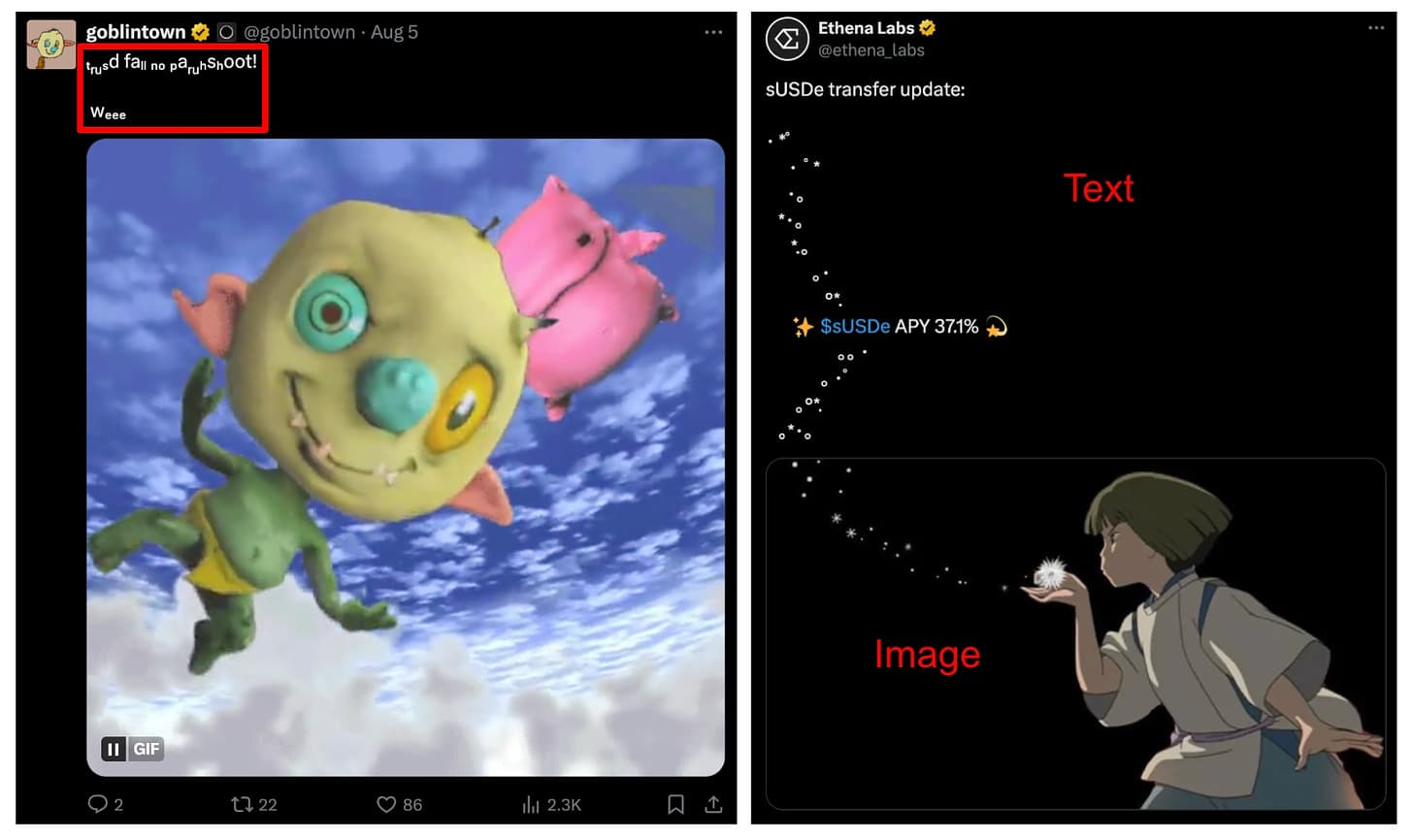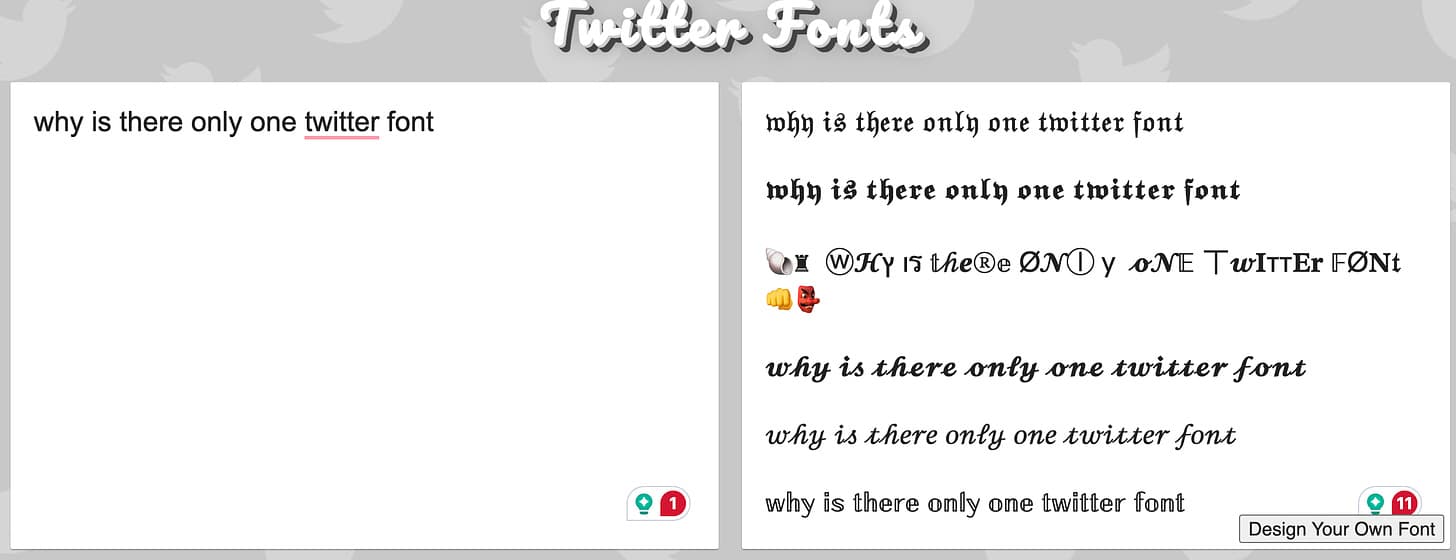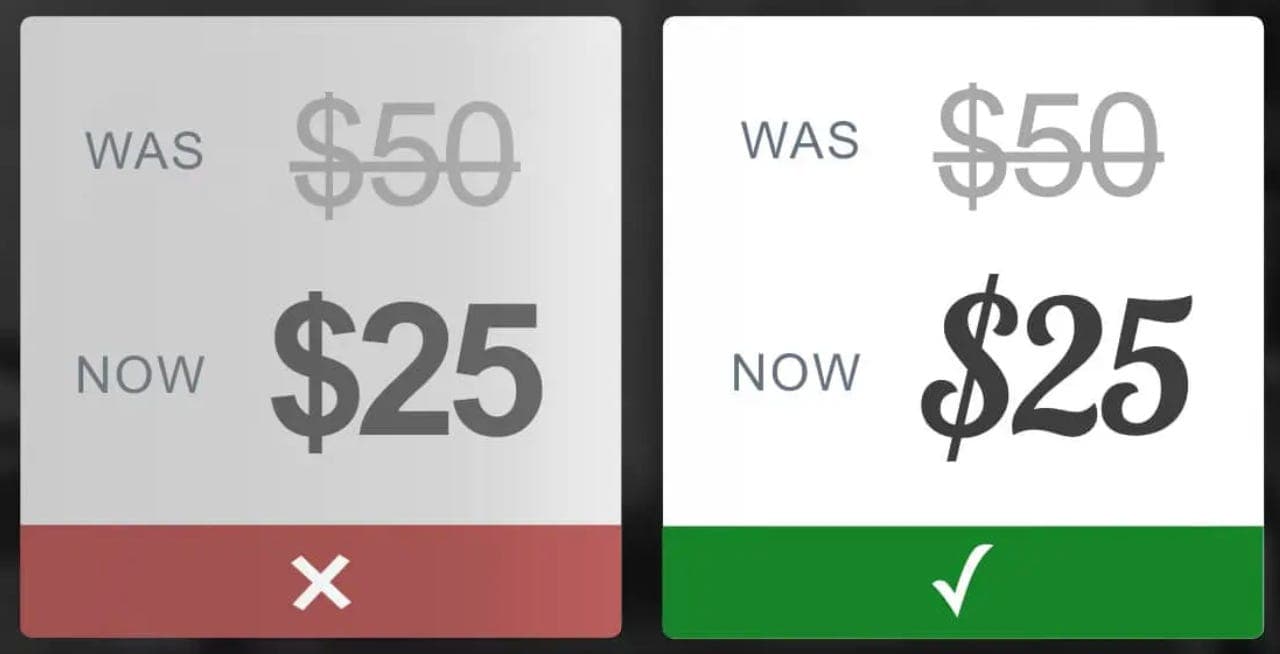
Nick Kolenda is a consumer psychology researcher with a great newsletter that highlights tactics that are particularly applicable in the ecomm space. I’ve subscribed for several years now and there are a lot of insights that are applicable in this space, or at minimum worth putting in the back pocket.
Today’s topic was around displaying good deals in ugly fonts:
Typically, fluency (ensuring a message is easy to read) is important when it comes to communicating a message. However, disfluency can be persuasive when leveraged creatively. The key insight from a marketing psychology study was this:
the increased effort required to process disfluent price information can lead to deeper information processing. If the advertised price offer represents a good value, it can enhance purchase decisions, even if customers prefer the disfluent display less
What this means is disfluency can act as positive friction when it comes to grabbing attention. In the constant war on attention on certain platforms that are restrictive when it comes to font, disfluency can be an advantage.
You can’t choose the font for your X posts, but there are other ways to work around that. For example, there are font tools utilizing unicode (a digital text standard) to make text more expressive.
We’ve seen this approach adopted by various projects in both an evergreen and one-off format:
Goblintown’s (in)famous superscript and subscript formatting to amplify the community’s persona and vibe. And they’ve been at it for 2 years and counting
Ethena combining text, image, emojis, and formatting to communicate a creative update
Goblintown and Ethena couldn’t be any more different, but they used disfluency to their advantage.
The only way to figure out how this can be best applied for a specific product or community is testing it out. If it doesn’t work out, it’ll be quickly forgotten and buried into the depths of the algorithm. If it does work (measured by engagement, replies, etc.), it can be doubled down on and be implemented in a specific capacity (eg: a certain type of recurring announcement or topic) or be an extension of a brand persona in an evergreen format.
The insights section from Bitkraft is also filled with nuggets. Check it out, whether you’re in the gaming industry or not.
Have you played a game before? If so, play this game of Share or Subscribe!
Seyi Taylor publicly shared slides from a Columbia Business School talk, making the case that distribution is the bottleneck for outsized returns.
In the presentation, Seyi provides several examples of the boom and bust cycle of verticals that struggle due to distribution changes:
Online news businesses impacted by Google SEO changes
Social content platforms (Buzzfeed, Upworthy) impacted by social media algorithms
DTC ecomm impacted by platform tracking restrictions (eg: Apple’s App Tracking Transparency policies)
The points are relevant for growth and marketing in general, and show why direct relationships with audiences will only increase in value. If only…
Earlier today, I saw this post by Quinn Campbell (former VP Growth at Axie Infinity).
In Quinn’s mini-case study, he defines a user as an account that onboarded onto Tribally and registered for the TGE. Impressive indeed. The billboard experiment was facilitated by PTAL, an advertising protocol that he founded.